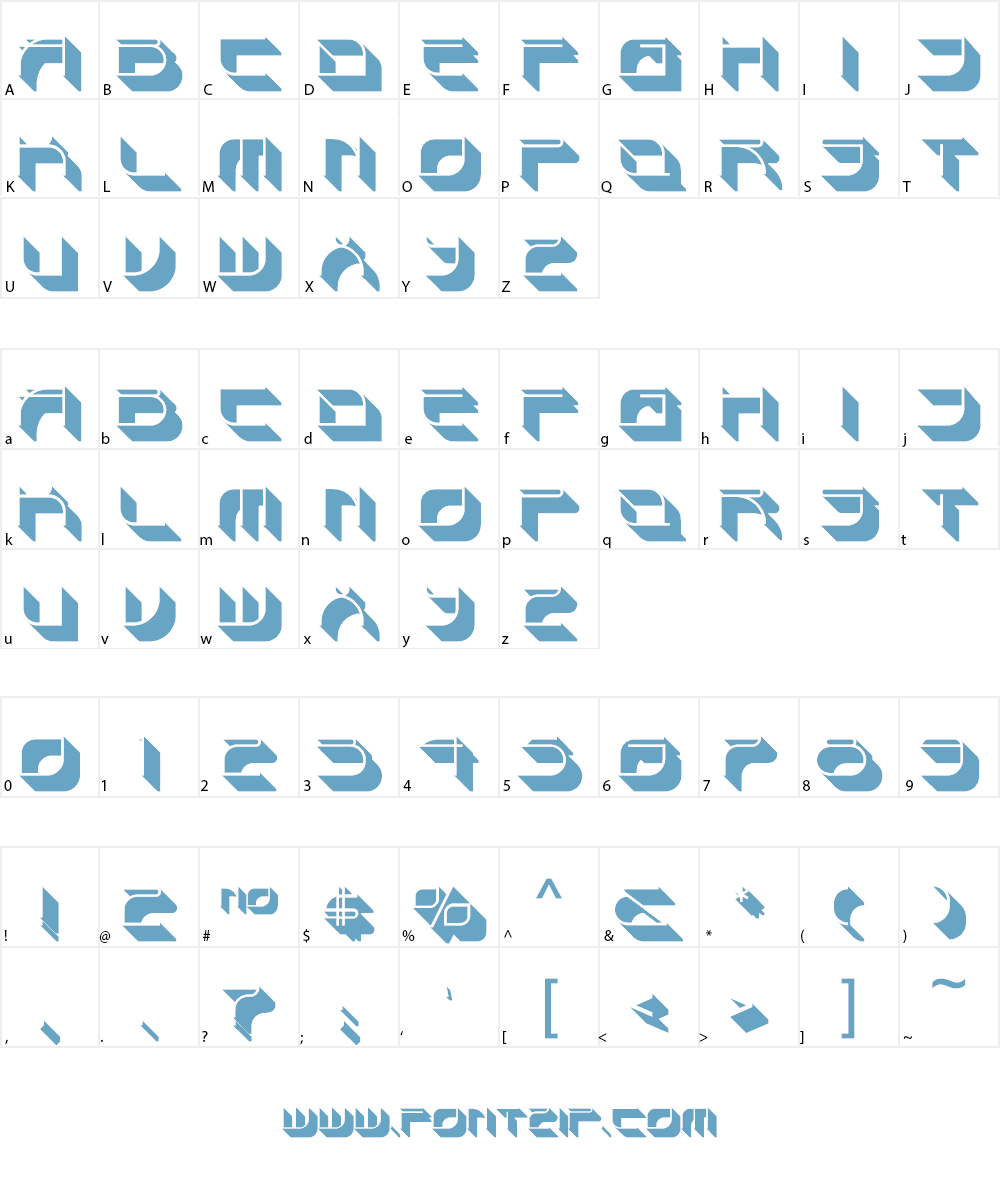
I came across a poster for an exhibition of the works of 1920s stage designer Erte which featured a costume illustration and four very bizarre letters. I expanded those four letters to a complete alphabet (plus the usual freeware abbreviated character set), and added an extruded shadow to boot. The result is a typeface equally suited to the 2020s, but best used in small doses. The name is 1940s hepcat slang for money, which, then as now, sometimes proves to be elusive.